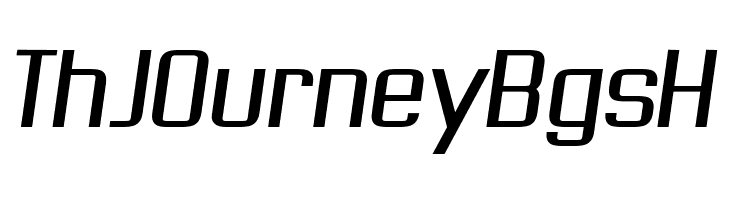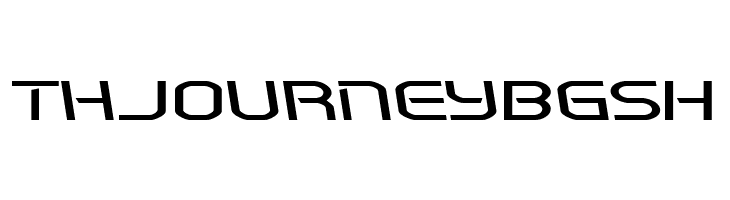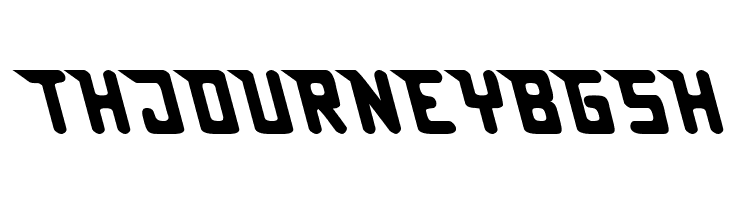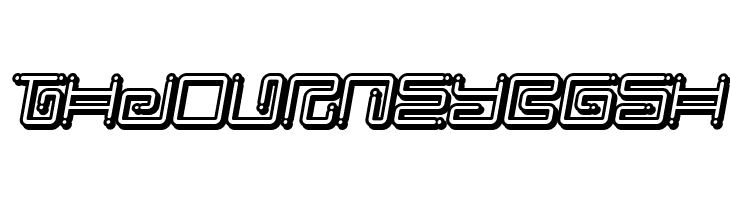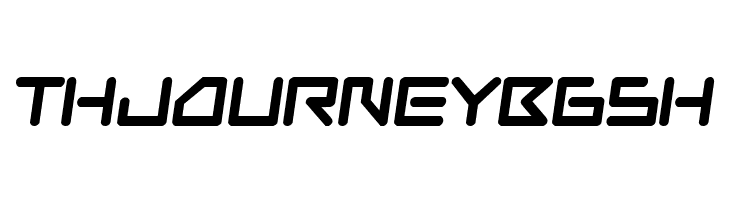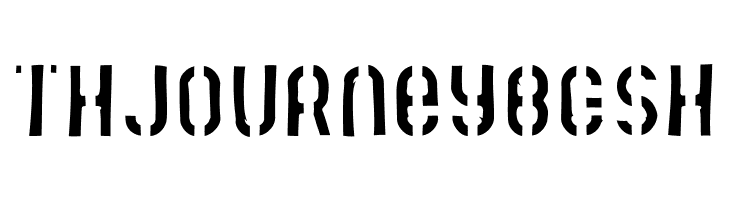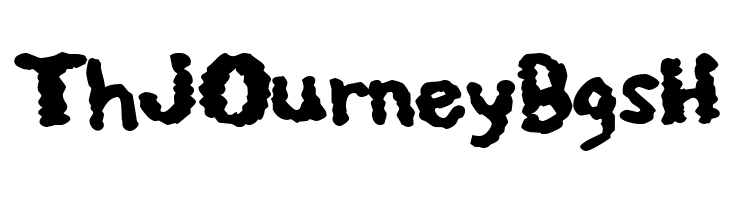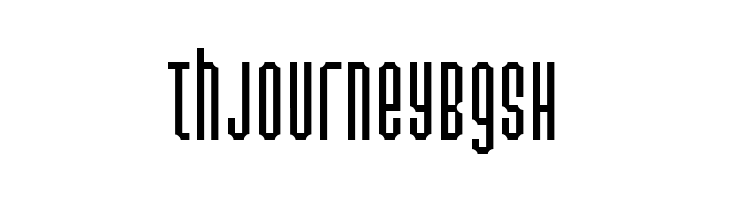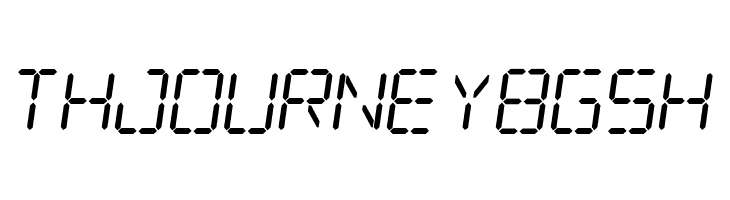
• BlindMelon
A bold, geometric font with a three-dimensional outline, perfect for striking headlines.
• As seen on TV Skew
A modern, slanted font with a sleek and dynamic design.
• Kometenmelodie 2
A futuristic, geometric font with sharp edges and a sleek, modern design.
• Lazerbeam surprise
A bold, angular font with a dynamic, futuristic style.
• Iron Lounge Smart Dot 2
A futuristic, geometric font with a bold, interconnected design and three-dimensional effect.
• Insane Hours
A futuristic, angular font with bold, geometric letterforms.
• Mute Fruit Skimpy Krash
A bold, stencil-style font with sharp edges and uniform thickness.
• Youthquake
A bold, playful font with a bubbly, hand-drawn texture.
• Permanent daylight
A bold, geometric font with a modern, digital aesthetic.
• Digital dream Skew
A segmented, digital-style font with a futuristic and technical appearance.